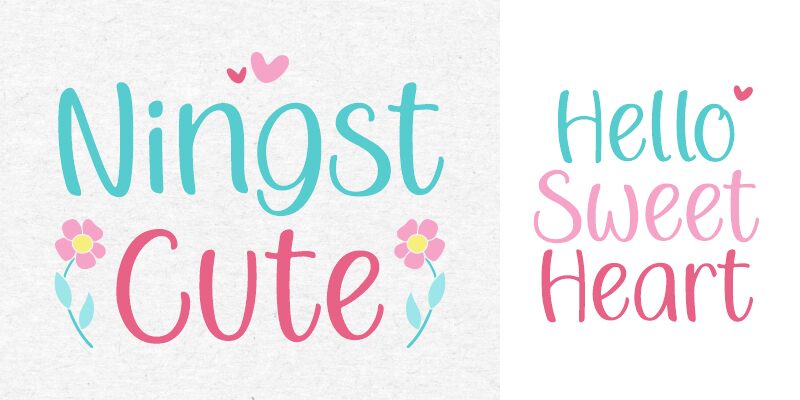
Ningst Cute is a light, cute script font designed by the talented Nista Ningsih Nazara and Situjuh Nazara. This font is perfect for crafting invitations, making logo designs, and creating beautiful posters. It adds a unique charm to any project!
Ningst Cute